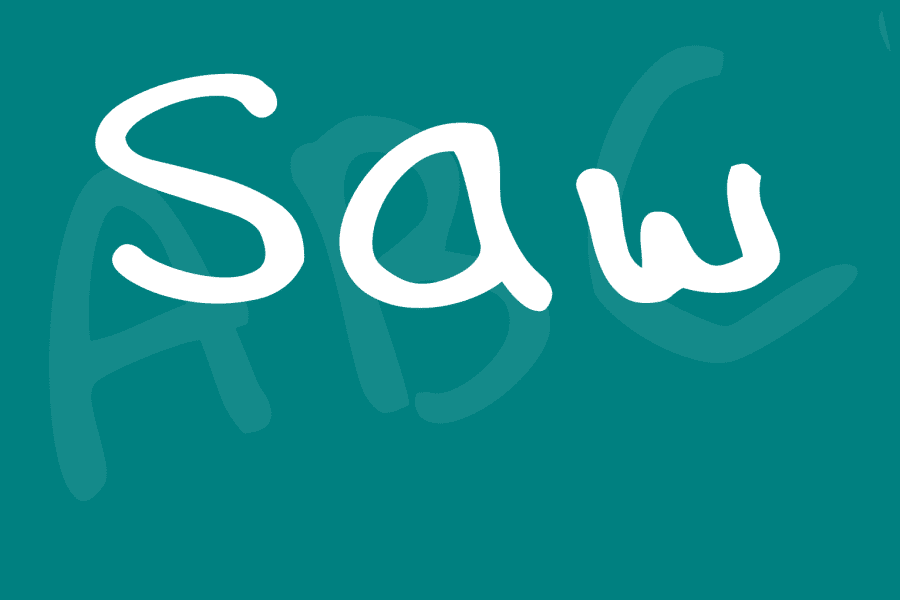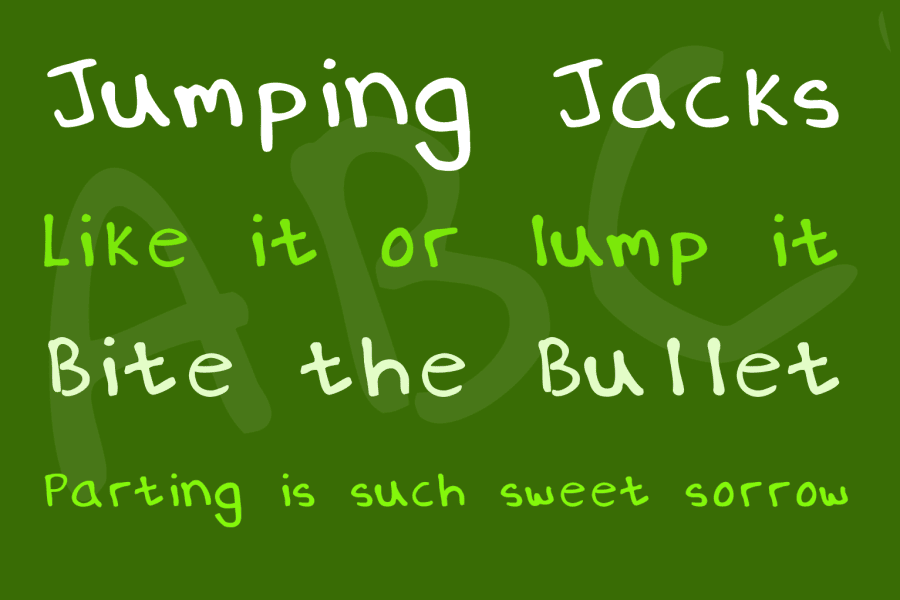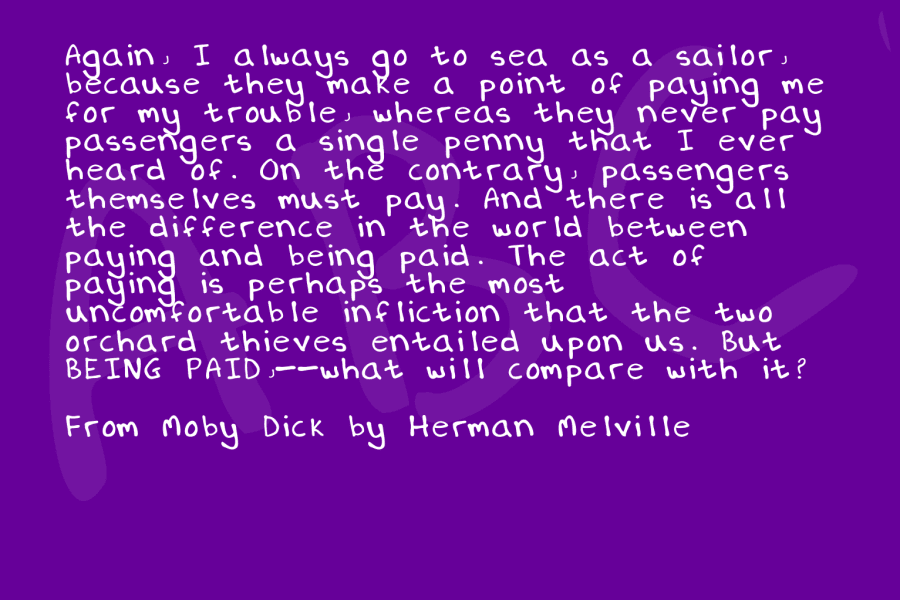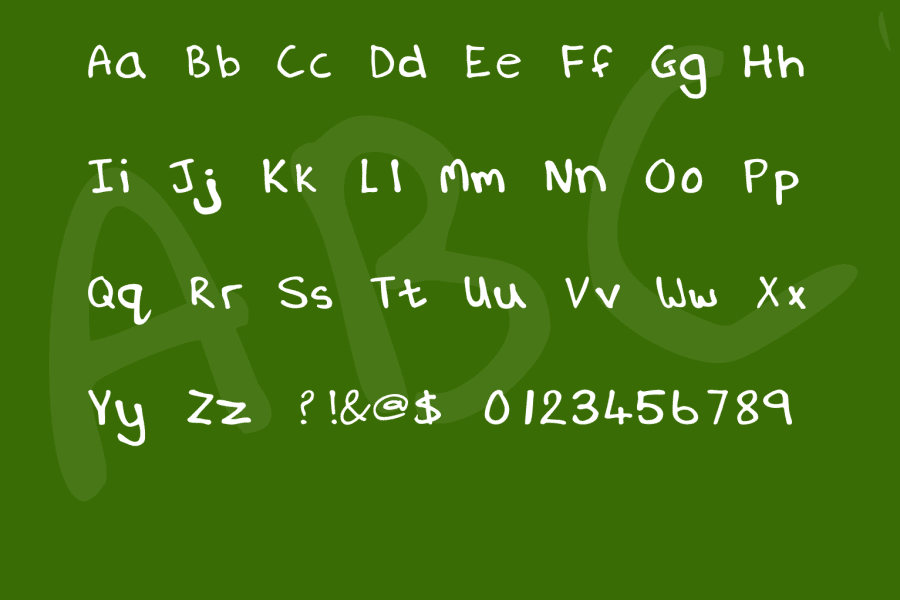
Saw Logo Font . The font used in this saw movie logo is customized. The font is called “s’awesome” and was designed by michael lukowski. Every font is free to download! Looking for saw movie fonts? Sawfont is the new movie font inspired by the 2010 hollywood live action movie, saw 3d. You can download saw font from font sherlock. You can use this font in your personal projects. The site will redirect you to the front page where you will find the character map of saw font. Every font is free to download! This font is free for personal use. Click to find the best 1 free fonts in the saw movie style. Further terms made by the respective author of saw may apply and should be found within the. Click to find the best 10 free fonts in the saw style. Saw is licensed under the 1001fonts general font usage terms. However, we have found a font that is very similar to this logo.
Further terms made by the respective author of saw may apply and should be found within the. Sawfont is the new movie font inspired by the 2010 hollywood live action movie, saw 3d. This font is free for personal use. Looking for saw movie fonts? Every font is free to download! However, we have found a font that is very similar to this logo. The font is called “s’awesome” and was designed by michael lukowski. The site will redirect you to the front page where you will find the character map of saw font. What font is used in the saw logo?
Saw Logo Font The font is called “s’awesome” and was designed by michael lukowski. What font is used in the saw logo? Further terms made by the respective author of saw may apply and should be found within the. This font is free for personal use. Saw is licensed under the 1001fonts general font usage terms. However, we have found a font that is very similar to this logo. Saw is a horror film franchise that focuses on the twisted games of a serial killer known as jigsaw, who puts his victims through horrifying tests to make them appreciate their lives. Every font is free to download! Click to find the best 10 free fonts in the saw style. The site will redirect you to the front page where you will find the character map of saw font. Sawfont is the new movie font inspired by the 2010 hollywood live action movie, saw 3d. The font is called “s’awesome” and was designed by michael lukowski. Click to find the best 1 free fonts in the saw movie style. You can download saw font from font sherlock. You can use this font in your personal projects.
Saw (Franchise) Saw Logo Font Saw is a horror film franchise that focuses on the twisted games of a serial killer known as jigsaw, who puts his victims through horrifying tests to make them appreciate their lives. Every font is free to download! However, we have found a font that is very similar to this logo. Looking for saw movie fonts? The font used in. Saw Logo Font.
Saw Film Logos (from 20042023) r/saw Saw Logo Font Looking for saw movie fonts? The font used for saw looks similar to chris font, designed by fg studios. You can download saw font from font sherlock. Click to find the best 1 free fonts in the saw movie style. The font is called “s’awesome” and was designed by michael lukowski. However, we have found a font that is very. Saw Logo Font.
"Saw movie logo horror" Essential TShirt for Sale by Allthingshorror Saw Logo Font Every font is free to download! The font used in this saw movie logo is customized. The font used for saw looks similar to chris font, designed by fg studios. Every font is free to download! You can use this font in your personal projects. This font is free for personal use. Looking for saw movie fonts? You can download. Saw Logo Font.
Saw Font FREE Download Hyperpix Saw Logo Font This font is free for personal use. Further terms made by the respective author of saw may apply and should be found within the. Looking for saw movie fonts? The site will redirect you to the front page where you will find the character map of saw font. However, we have found a font that is very similar to this. Saw Logo Font.
Saw Font · 1001 Fonts Saw Logo Font Further terms made by the respective author of saw may apply and should be found within the. Sawfont is the new movie font inspired by the 2010 hollywood live action movie, saw 3d. Looking for saw movie fonts? Click to find the best 10 free fonts in the saw style. You can use this font in your personal projects. The. Saw Logo Font.
Saw Font · 1001 Fonts Saw Logo Font Click to find the best 10 free fonts in the saw style. You can use this font in your personal projects. The font used in this saw movie logo is customized. Looking for saw movie fonts? This font is free for personal use. Saw is licensed under the 1001fonts general font usage terms. Further terms made by the respective author. Saw Logo Font.